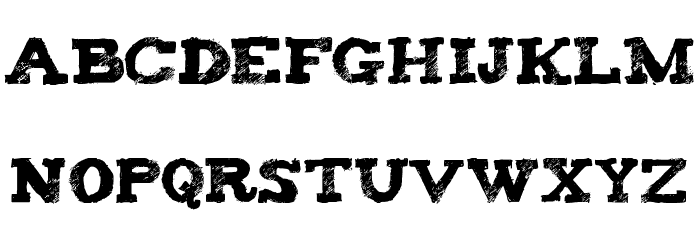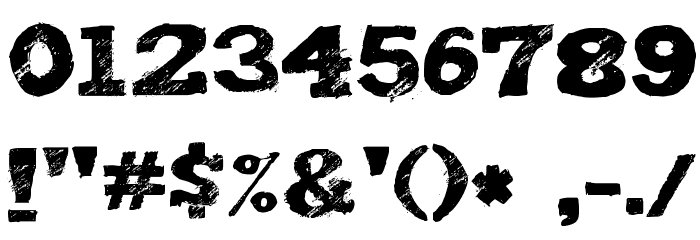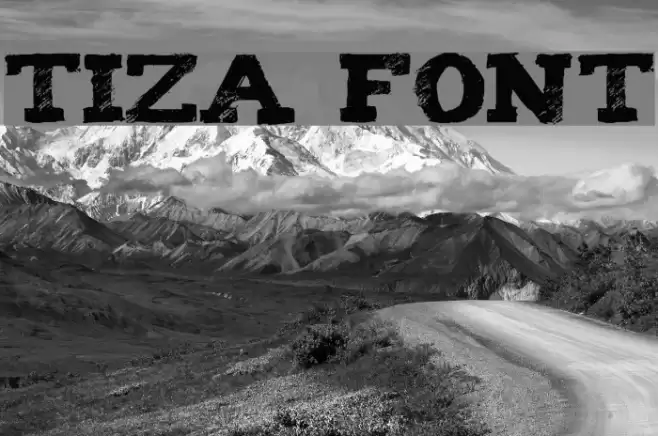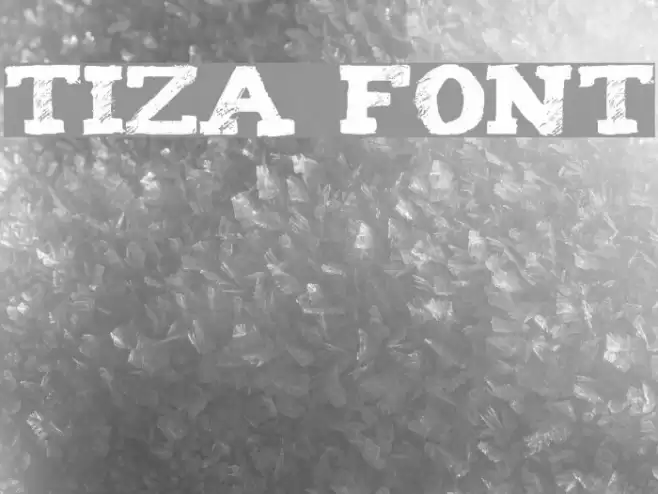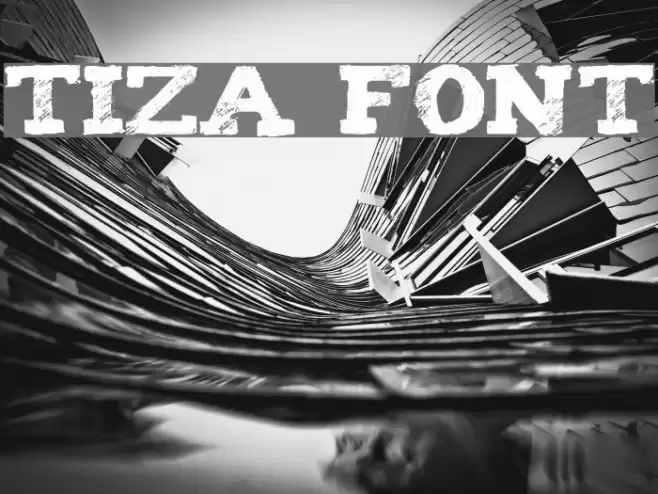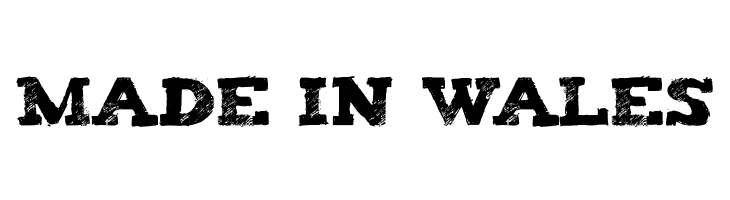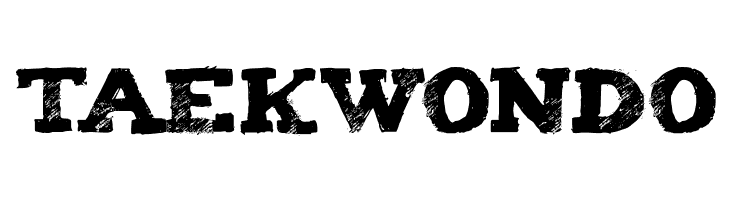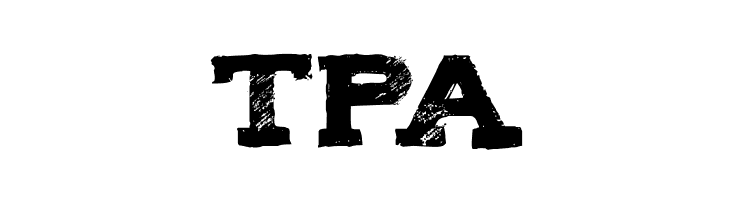
Tiza Font
This font features a bold and distressed style, reminiscent of chalk or crayon markings on a rough surface. The characters have a rugged texture, giving them a hand-drawn appearance that adds a sense of authenticity and rawness. The uppercase and lowercase letters maintain a consistent weight, contributing to the font's strong visual impact. The numbers and special characters follow the same distressed aesthetic, ensuring uniformity across all glyphs. This font's unique style makes it stand out, ideal for projects that require a touch of creativity and an informal, artistic vibe.
A bold, distressed font with a hand-drawn, chalk-like texture.
- Proposed Projects: Ideal for posters, artistic designs, educational materials, and creative branding.